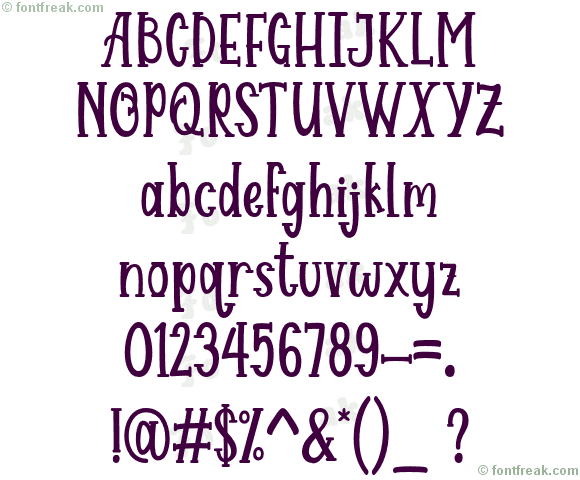
MonsterSweetness
About MonsterSweetness
MonsterSweetness by Situjuh Nazara is an intriguing display font that effortlessly blends playful charm with a touch of whimsy. This font falls into the decorative category, making it an ideal choice for projects that require an eye-catching and delightful typographic style. The strokes of MonsterSweetness exhibit a medium weight with subtle contrasts, providing a friendly and approachable appearance that is accentuated by its rounded edges. The spacing is thoughtfully designed to ensure legibility while maintaining a cohesive and engaging flow.
This font is particularly well-suited for a variety of creative applications. For instance, it can be used to craft vibrant movie posters that capture the essence of fun and adventure, or it can add a unique flair to children's book covers, making them more appealing to young readers. Additionally, wedding invitations designed using MonsterSweetness can evoke a sense of joy and celebration, while restaurant menus may benefit from its playful aesthetic, enticing diners with an inviting atmosphere.
The target audience for MonsterSweetness includes graphic designers looking to add a distinctive touch to their projects, small business owners who want to create memorable branding, and content creators seeking to engage their audience with visually striking designs.
What sets MonsterSweetness apart is its ability to evoke emotions while remaining versatile across different contexts. This font not only captures attention but also allows for personalization, making any project feel unique and special. For those interested, the MonsterSweetness font free download offers an excellent opportunity to incorporate this delightful typeface into various creative works, ensuring that your designs stand out with a playful yet professional finish.